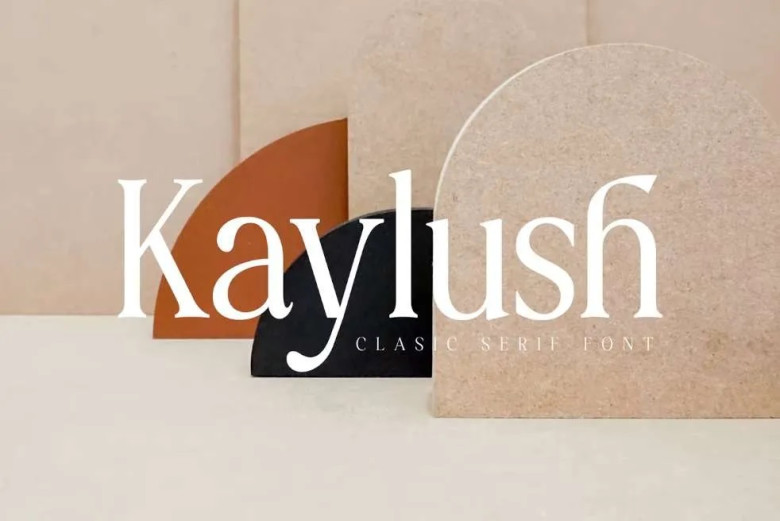
Kaylush Font, very suitable as to make adorable invitation for wedding, birthday, special day. A collection of letters and numbers suitable your projects also great for Logotype, Branding Design, Logo Design, Digital Lettering Arts, T-Shirt/Apparel, Poster, Magazine, Signs, Advertising Design, and also perfect for your other projects branding.
Kaylush Classy Serif Font